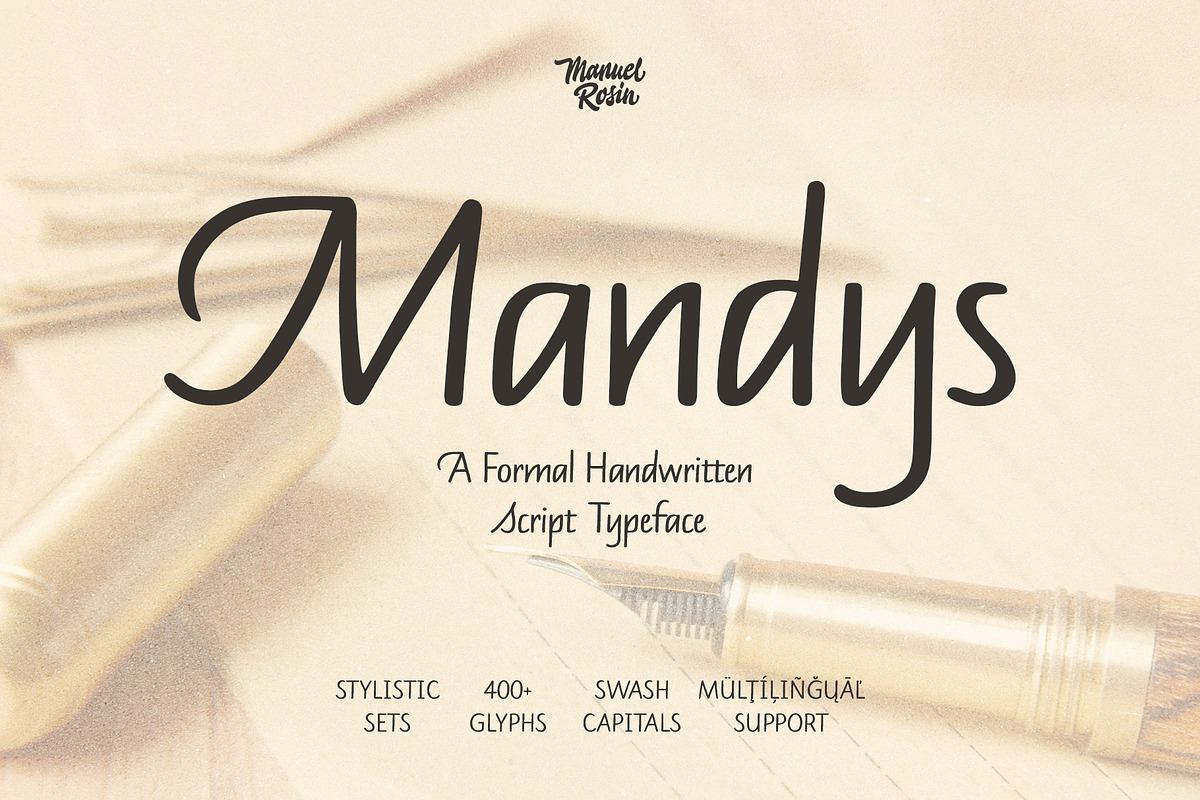
The Mandys - Formal Handwritten Typeface Free Download is a sophisticated and elegant script font designed to add a refined, handwritten touch to your designs. With its graceful curves and clean, formal style, this typeface is perfect for creating high-end branding, invitations, logos, and editorial work. Whether you’re designing for a luxury brand, a wedding, or a corporate project, Mandys brings a timeless, personal touch to your work.
Mandys - Formal Handwritten Typeface Free Download is ideal for designers looking for a classy, sophisticated font that still feels personal and handmade. Perfect for upscale branding, special events, or creative design projects, this font will elevate your designs with its elegance. Download it today and add a graceful, formal handwritten style to your work!